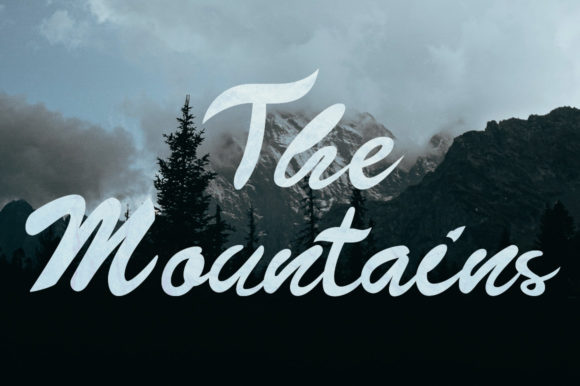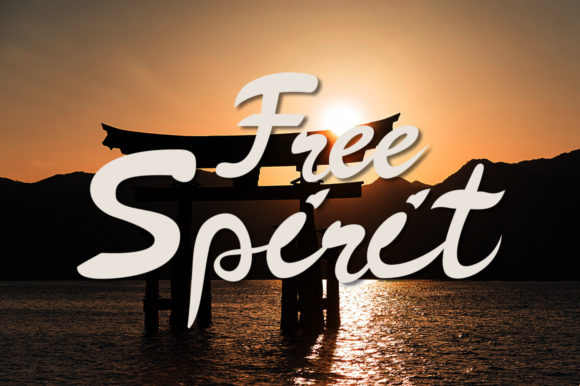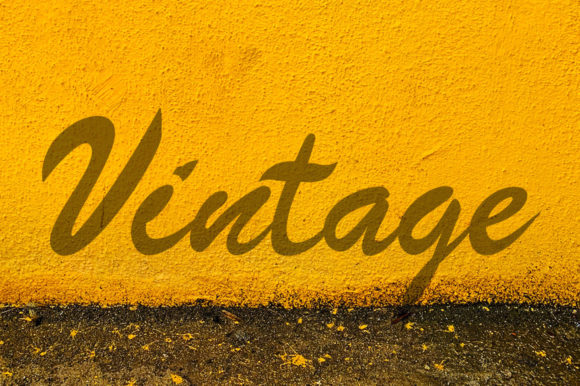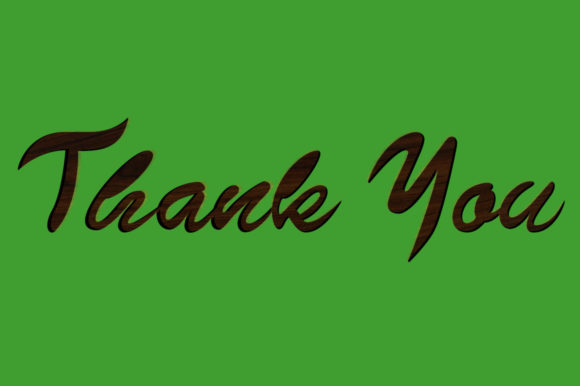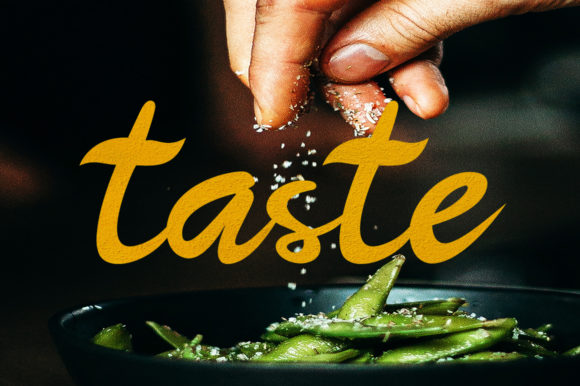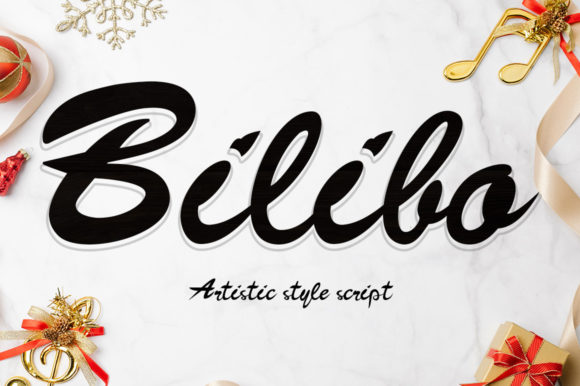
The Bilibo Font: A Lovely Paint Brushed Script for Your Creative Projects
What is Bilibo Font?
Bilibo is a lovely paint brushed script font that was made specifically for packaging products, invitation cards, flyers, event fonts, posters, and all aspects that require high-quality vibes. This font is perfect for designers, crafters, and creative hobbyists who want to add a touch of elegance and sophistication to their projects.
Honest Review: What I Love and What I Don’t
- 💫 Beautiful, elegant, and sophisticated design
- 🎨 Perfect for a variety of creative projects, including invitation cards, flyers, and posters
- 🔍 PUA encoded, making it easy to access all glyphs and swashes
- 👍 Highly legible, even at small font sizes
- ⚠️ Limited availability of certain characters and glyphs
- 🤯 Can be a bit tricky to pair with other fonts
The Bilibo font was designed with the intention of creating a beautiful, elegant script font that would be perfect for a variety of creative projects. The designer wanted to create a font that would evoke a sense of sophistication and refinement, while also being highly legible and easy to use.
Q: What is the Bilibo font best used for?
A: The Bilibo font is best used for creative projects that require a high level of elegance and sophistication, such as invitation cards, flyers, posters, and packaging products.
Q: Is the Bilibo font PUA encoded?
A: Yes, the Bilibo font is PUA encoded, making it easy to access all glyphs and swashes.
Q: Is the Bilibo font easy to pair with other fonts?
A: While the Bilibo font can be paired with other fonts, it can be a bit tricky. Experiment with different font combinations to find the perfect pairing for your project.